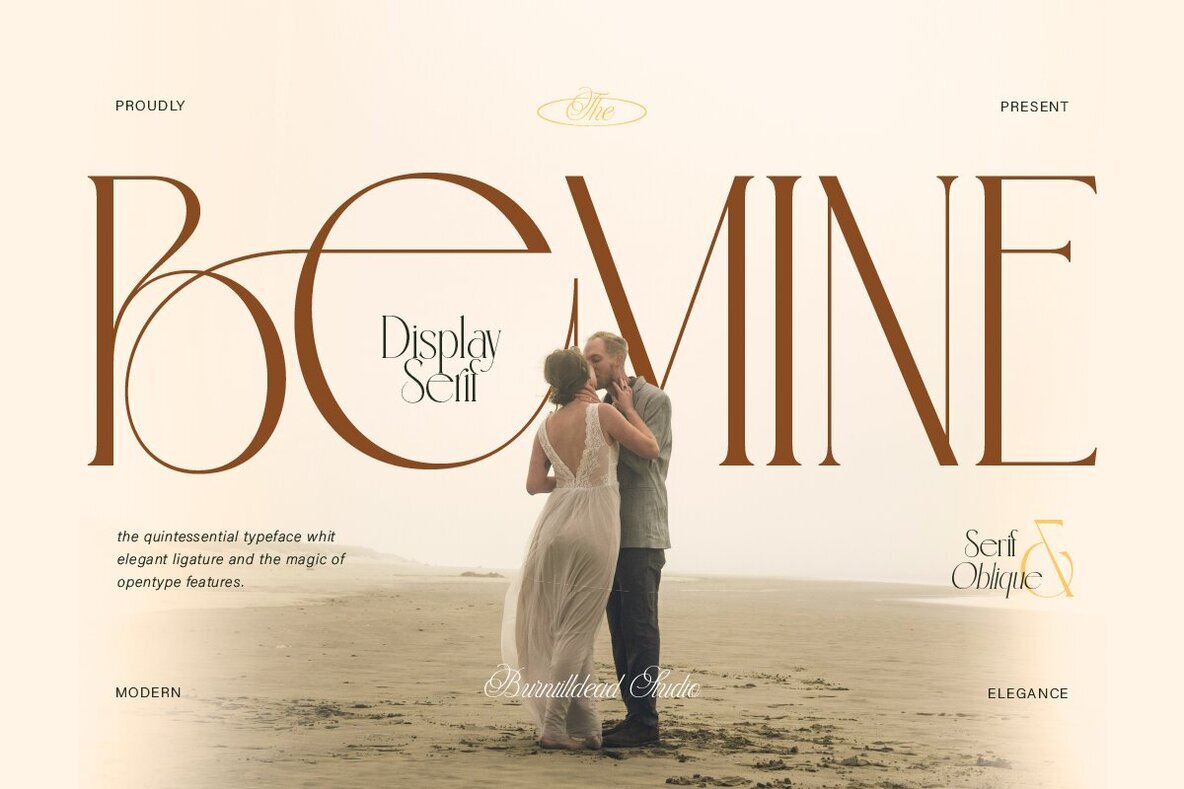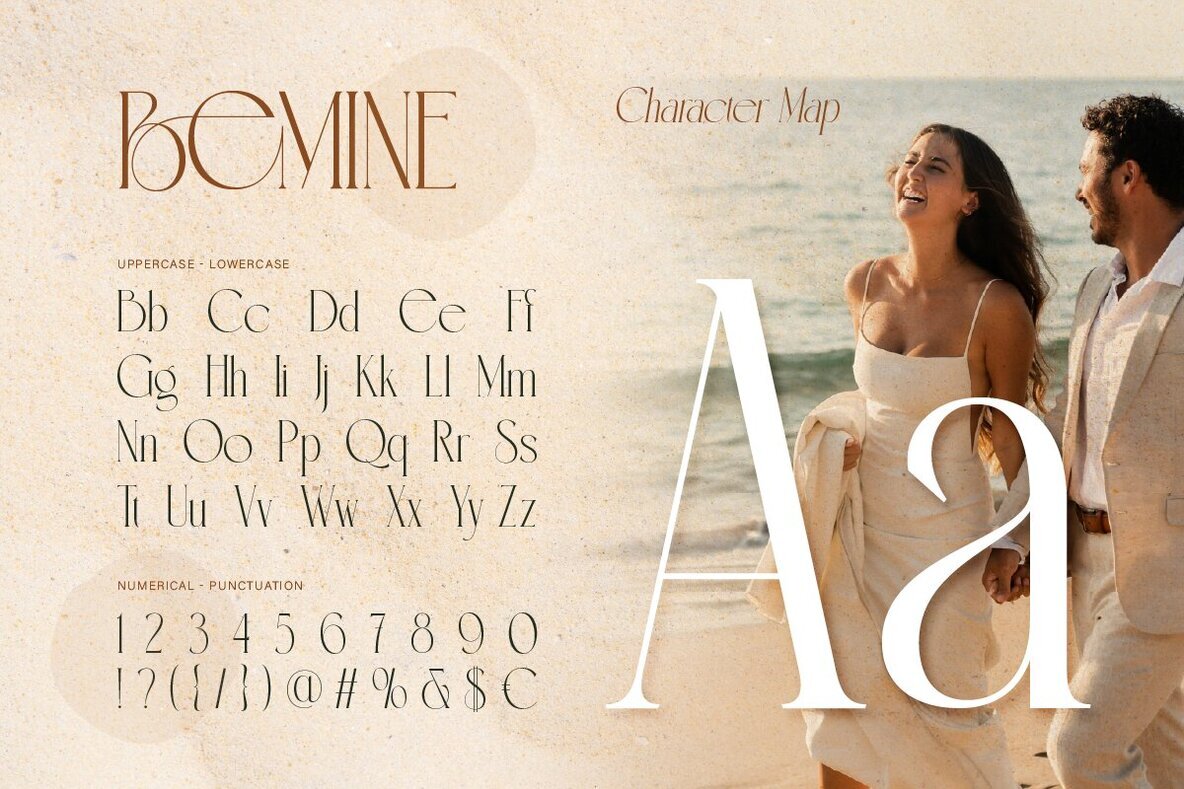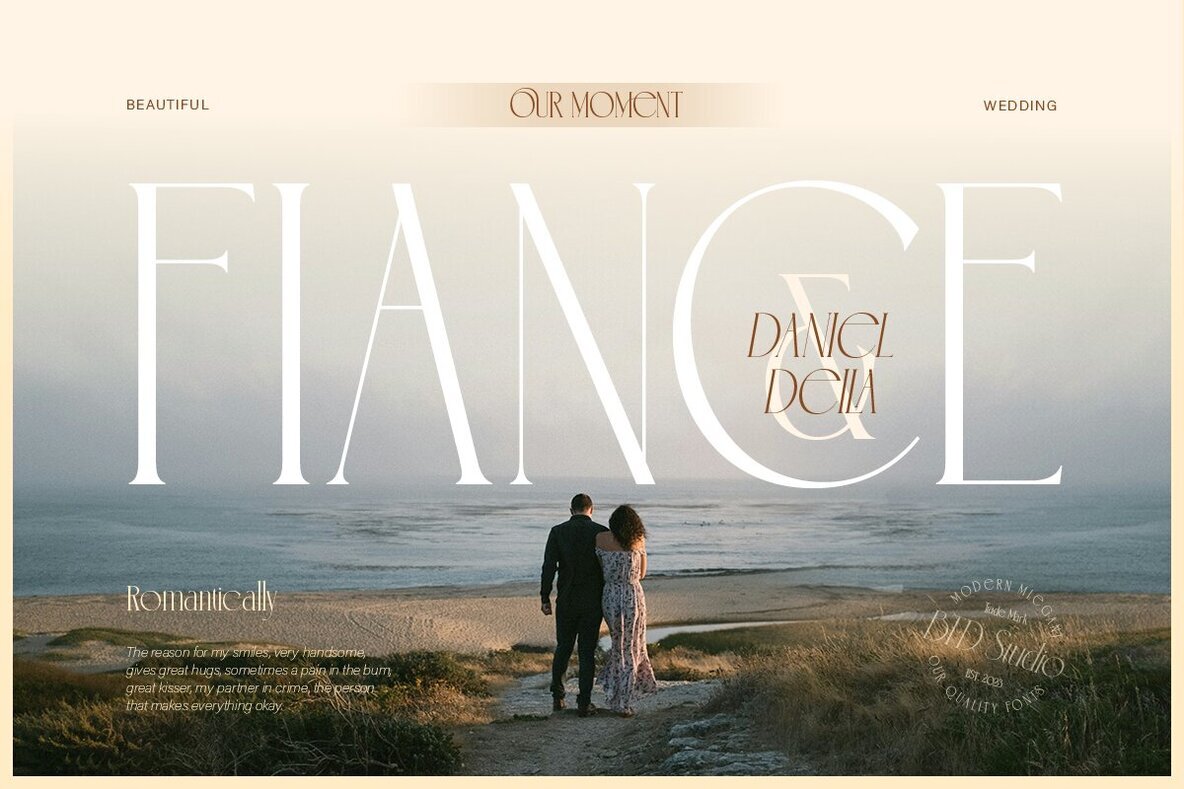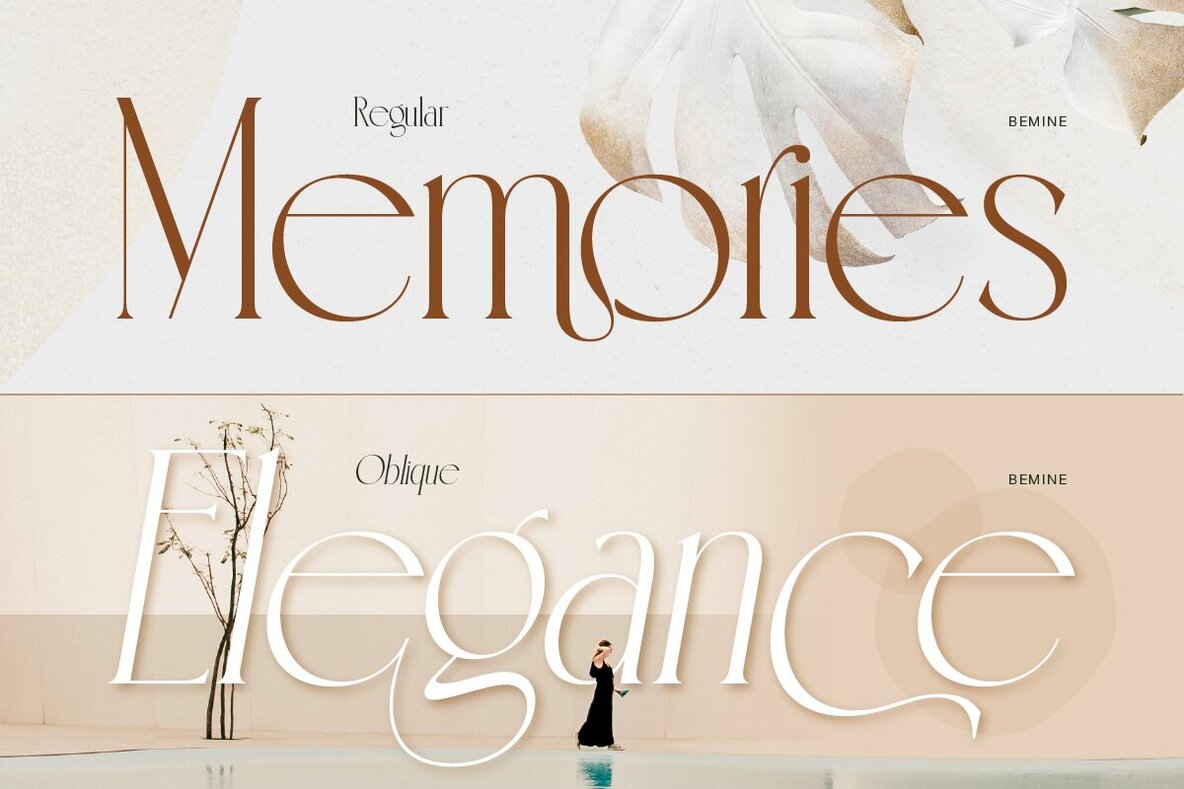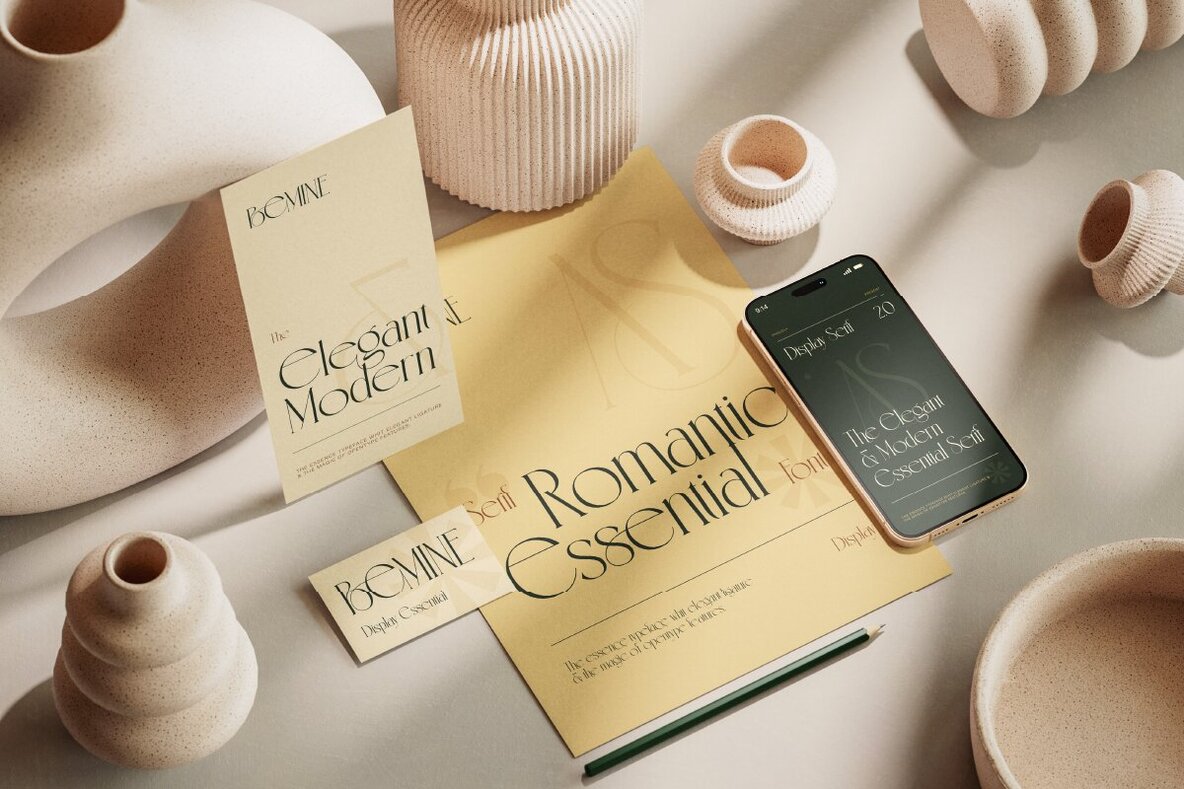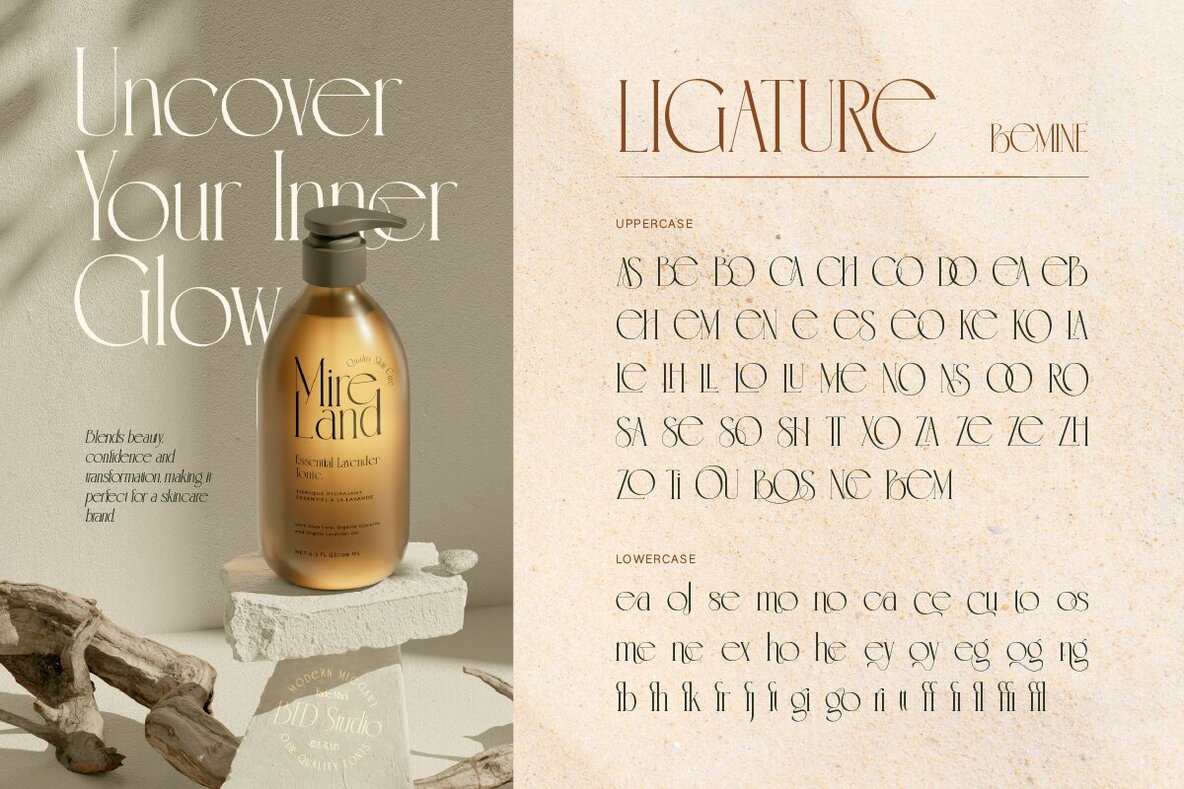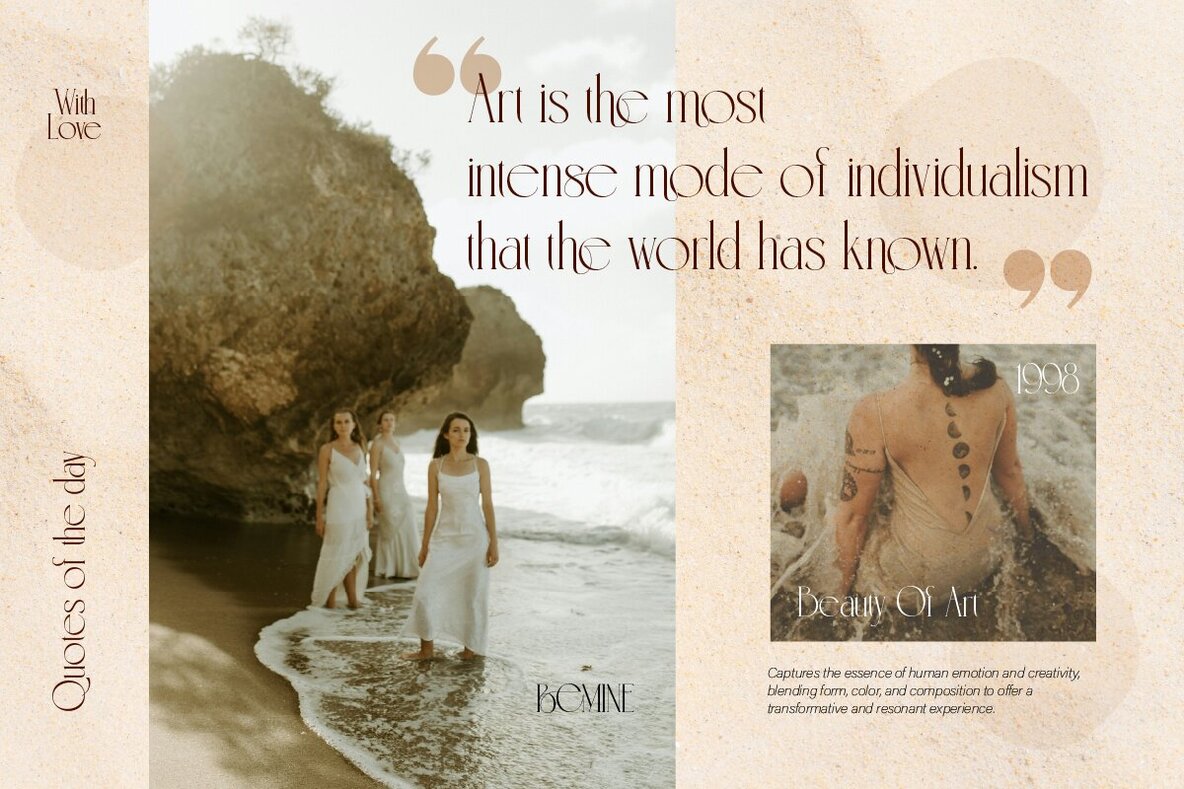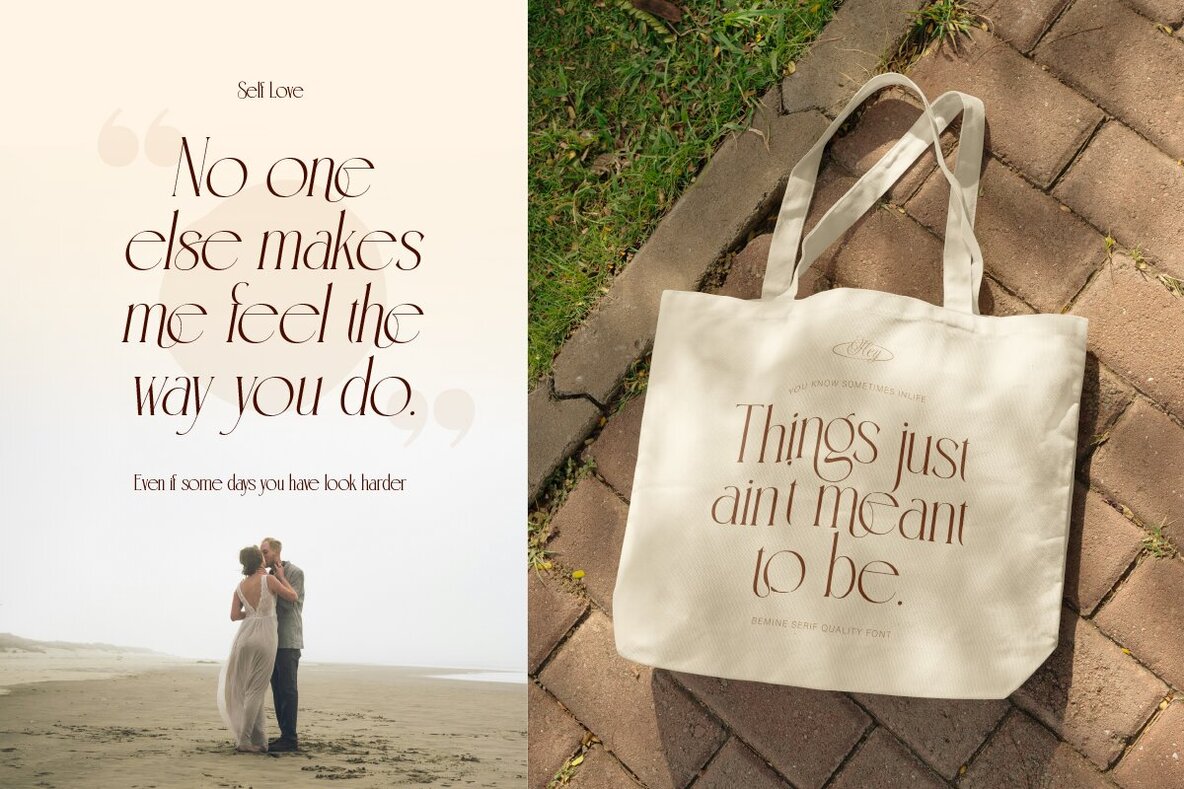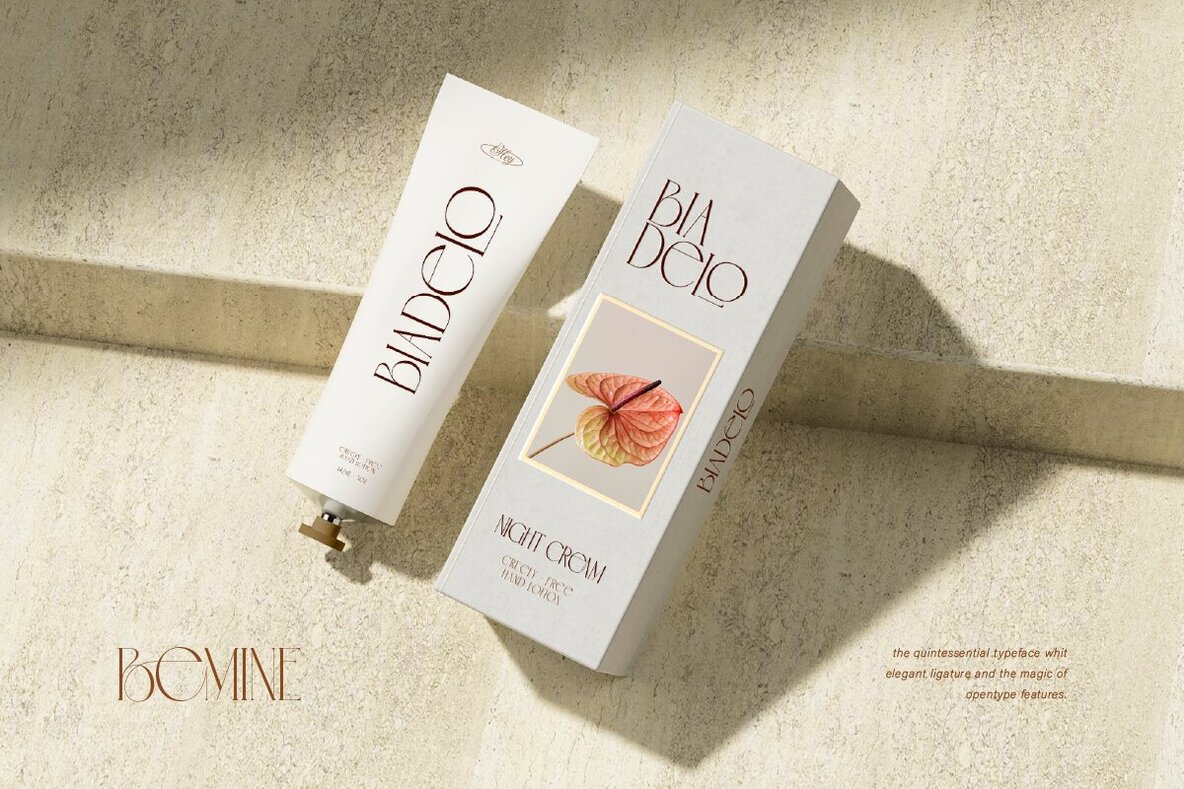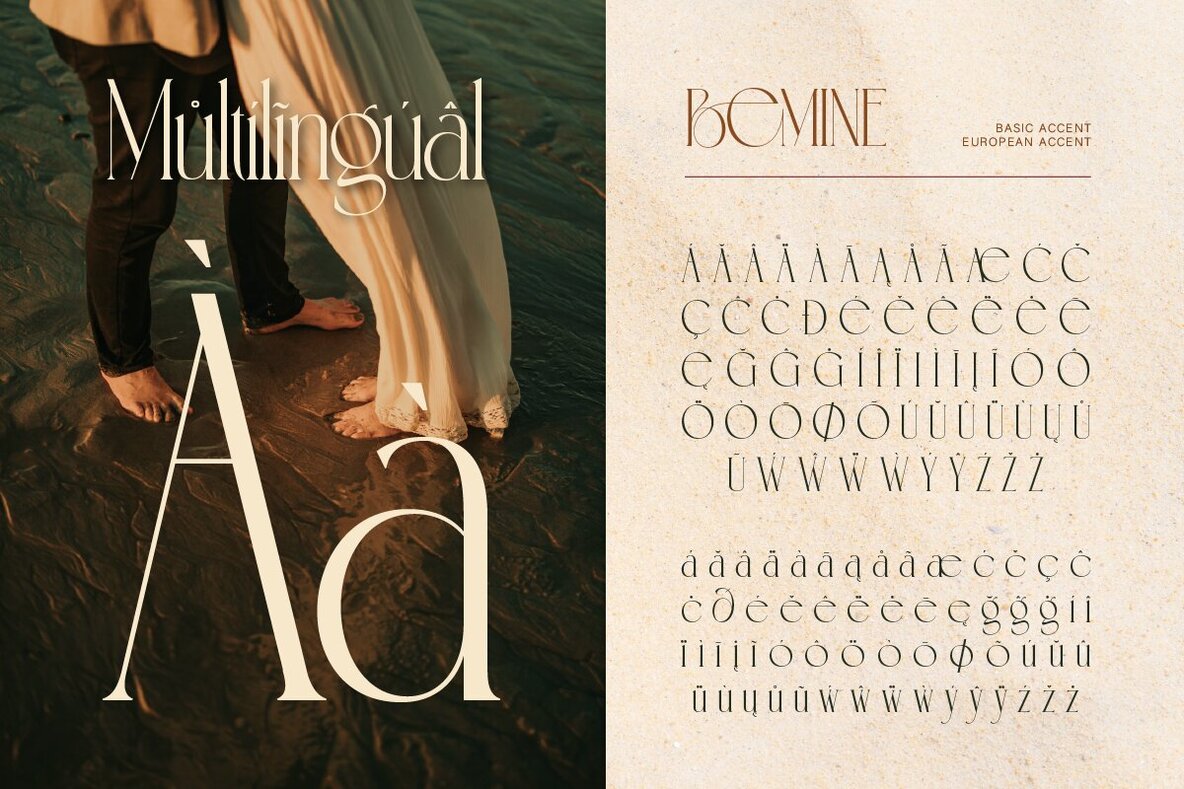
Bemine Font
Bemine Regular
Bemine Oblique
Bemine is a display serif font that captivates with its distinctive aesthetic and refined charm. Its striking contrast between bold vertical strokes and delicate horizontal lines lends a sense of glamour and high-fashion elegance to any design. Ideal for wedding invitations, fashion branding, book covers, and editorial projects, Bemine seamlessly integrates a romantic touch with a substantial visual presence. Its unique style ensures your creations exude sophistication and charm.Bemine: Classic Display Serif with Romantic Elegance